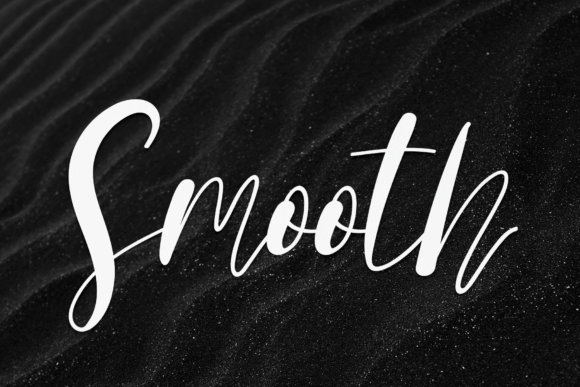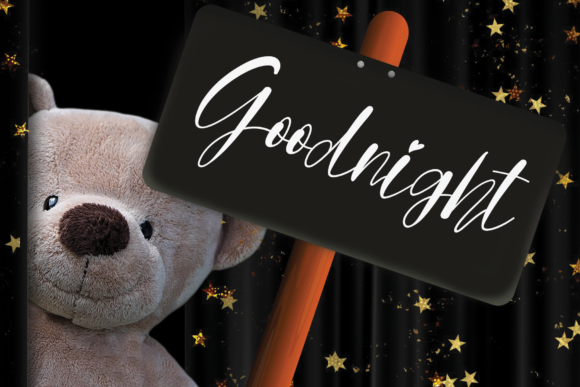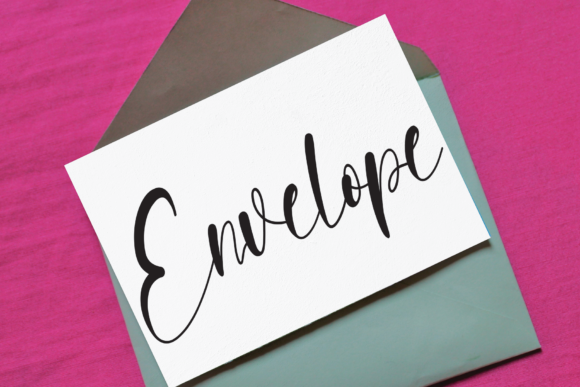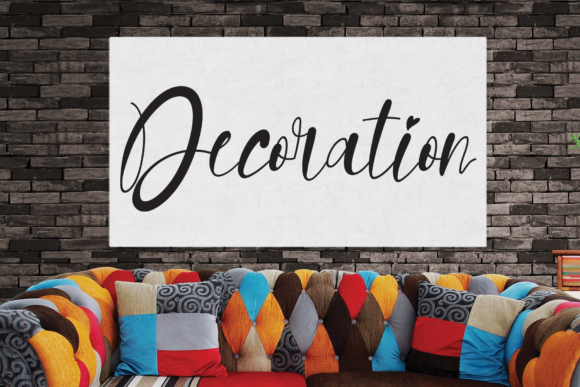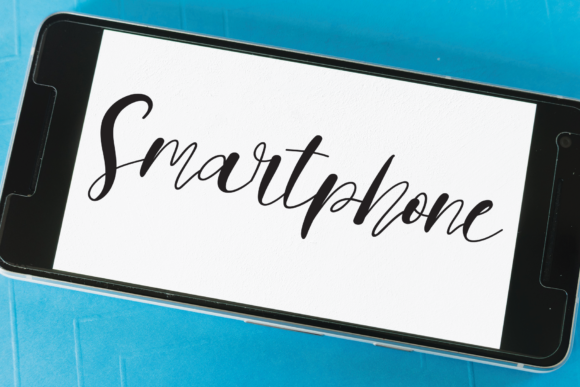
Smooth Font
About Smooth Font
Smooth is a peculiarly attractive handwritten font. With slightly bold characters and an elegant style, this typeface will make a great addition to any of your lovely creations!